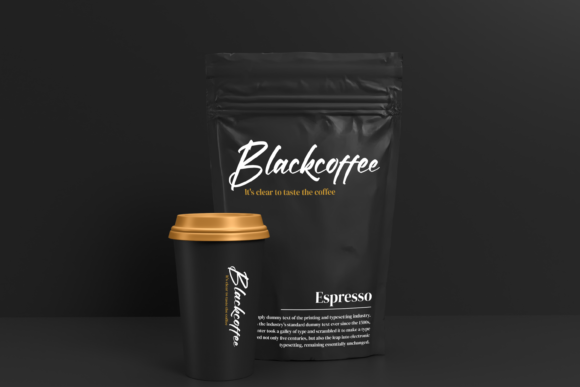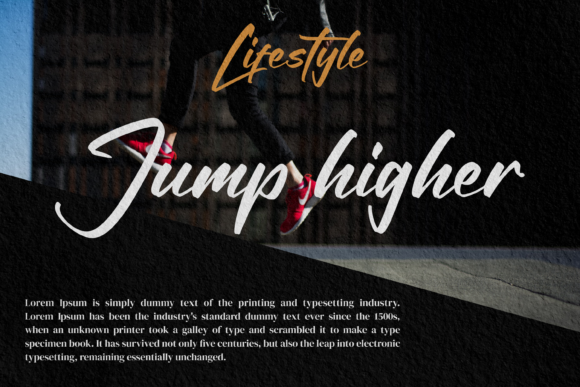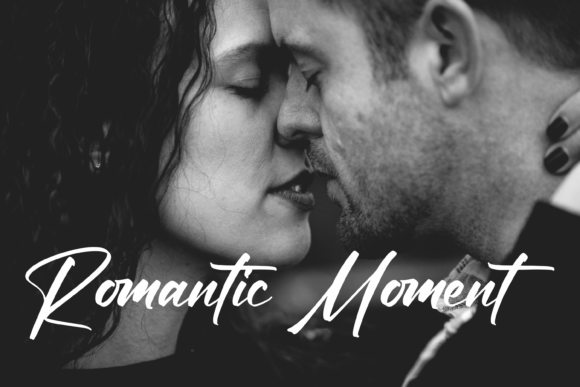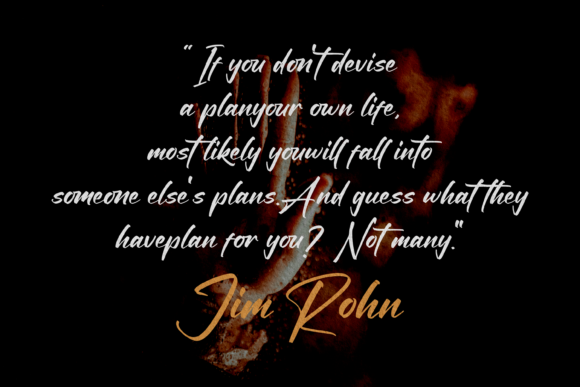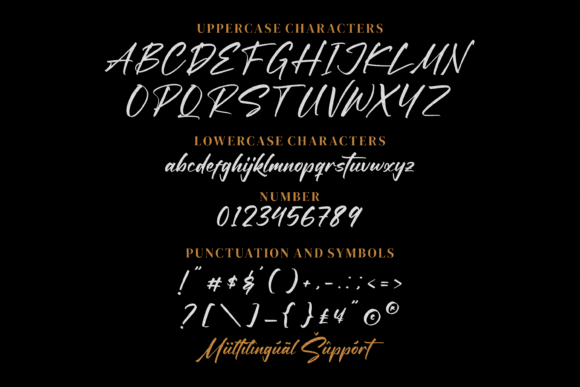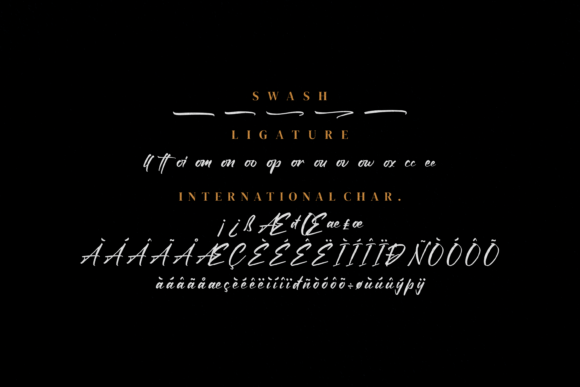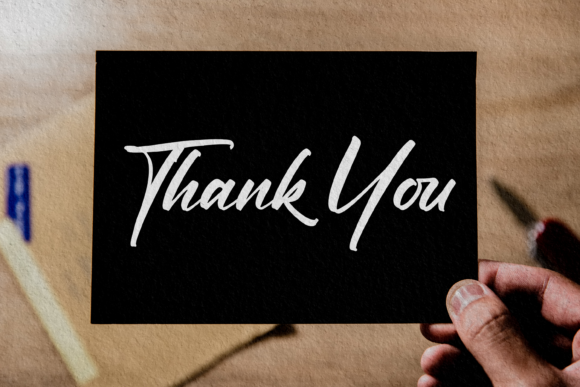
Blacklist Font
Blacklist is a casual and trendy handwritten font, crafted to give your headlines and logotype projects a stylish touch. This font reads as strong, confident, and dynamic and can add tons of nostalgic character to your designs.